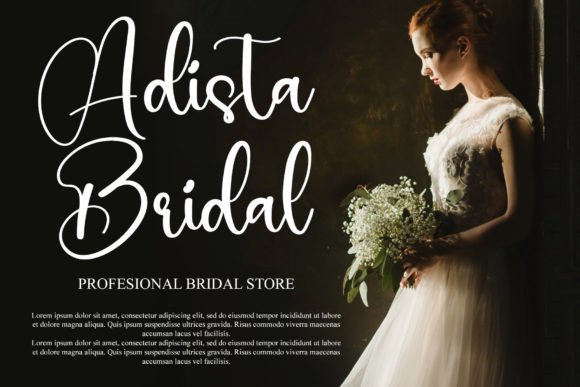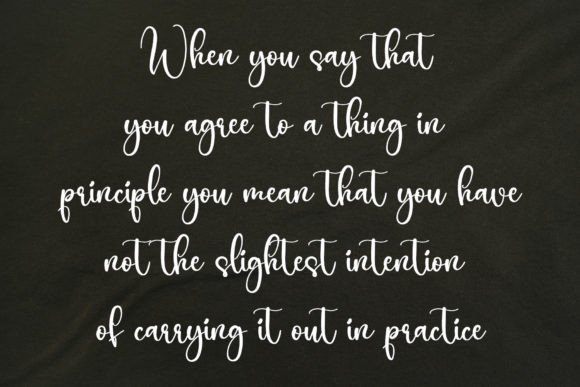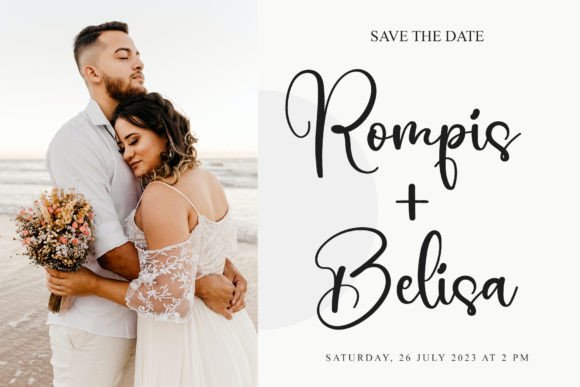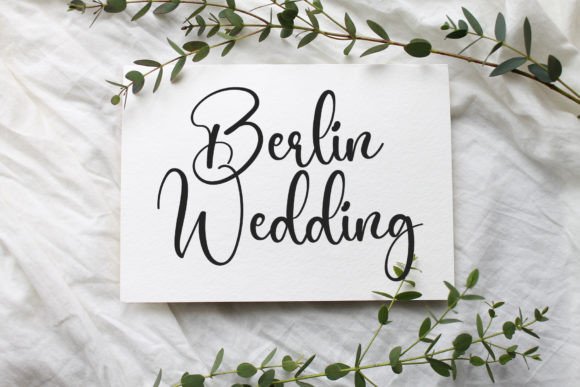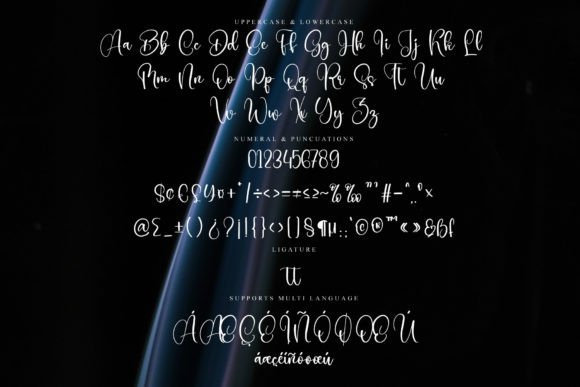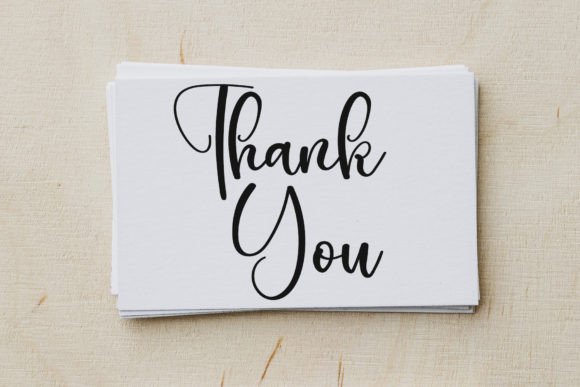
The Sweet Charm of Bestie Font: A Designer’s Delight
I’ll never forget the time I was working on a wedding invitation project, and my client asked for a font that was ” elegant, yet playful, and totally Instagram-worthy.” I scoured the internet, tried out a gazillion fonts, but nothing seemed quite right. That was until I stumbled upon Bestie Font – a sweet and cursive handwritten font that stole my heart! 💕
An Honest Review of Bestie Font
- ✨ Sweet and feminine vibe: Bestie Font has a gentle, whimsical quality that adds a touch of romance to any design.
- ✅ Cursive and flowing: The font’s cursive script makes it perfect for creating beautiful, flowing text that draws the eye.
- 💕 Versatile: Bestie Font works beautifully on a variety of design ideas, from branding and logos to wedding materials and greeting cards.
- 👍 Elegant yet casual: This font strikes the perfect balance between elegance and casual charm, making it suitable for both formal and informal projects.
While Bestie Font is an amazing addition to any design project, there are a few things to keep in mind: 🤔
- ⚠️ Limited use in body text: Due to its cursive nature, Bestie Font might not be the best choice for long blocks of body text. It’s better suited for headings, titles, or short paragraphs.
- ⚠️ Requires attention to spacing: As with any script font, it’s essential to adjust the spacing between letters to ensure the text looks balanced and visually appealing.
The Story Behind Bestie Font
Bestie Font was designed with love by a talented typographer who wanted to create a font that would bring joy and romance to design projects. Inspired by the beauty of handwritten scripts, Bestie Font was crafted to be both elegant and approachable.